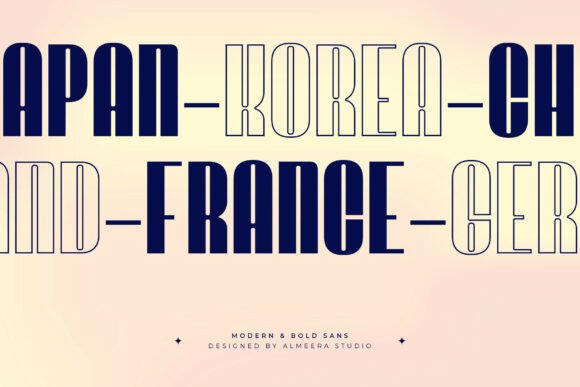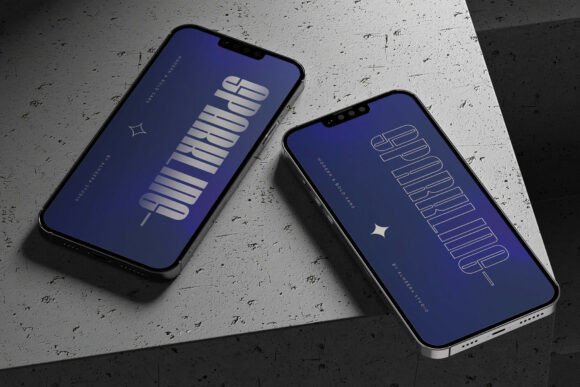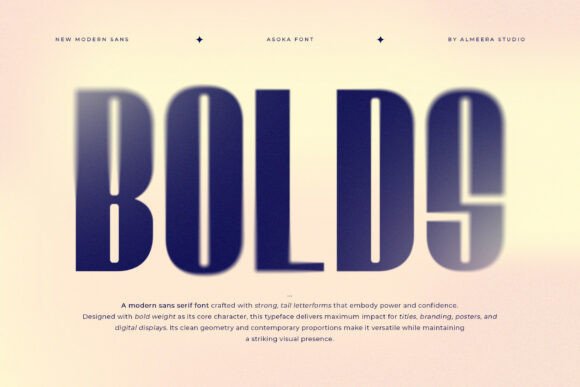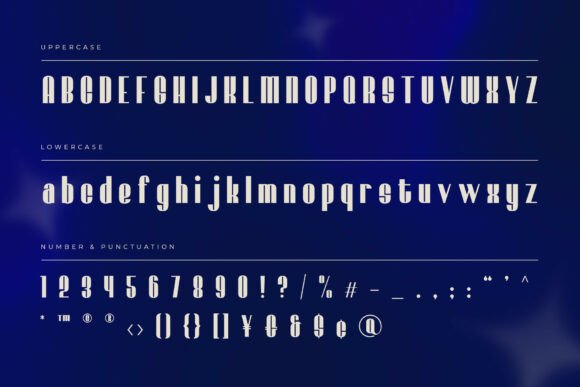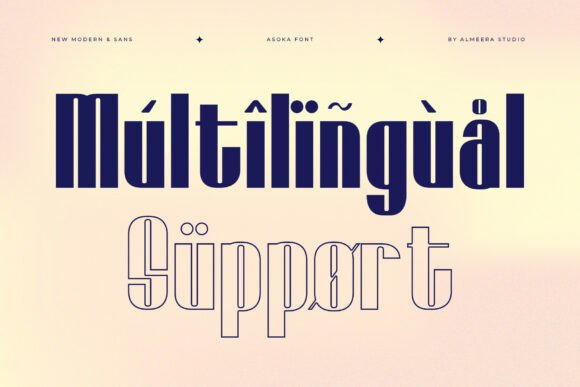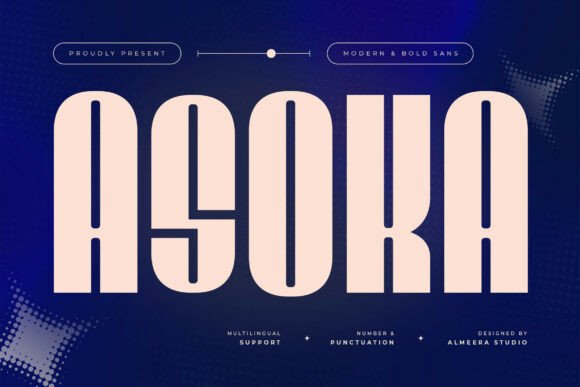
Introducing Asoka Font: The Modern, Bold Sans Font for Impactful Designs
In the world of typography, fonts play a crucial role in conveying messages, expressing emotions, and creating lasting impressions. For designers and crafters, selecting the right font can make all the difference in achieving their creative goals. If you’re looking for a font that exudes strength, clarity, and modernity, look no further than Asoka Font. In this article, we’ll explore the features, benefits, and uses of Asoka Font, and why it’s becoming a popular choice among designers and crafters.
What is Asoka Font?
Asoka Font is a modern, bold sans font that is designed to bring impact and attention to your designs. With its tall proportions and geometric structure, Asoka is perfect for creating striking headlines, logos, posters, packaging, and digital campaigns. Its contemporary style blends minimalism with authority, ensuring that your message always captures attention.
Key Features of Asoka Font
- Tall Proportions: Asoka Font features tall proportions that give it a sense of grandeur and monumentality, making it perfect for headlines and titles.
- Geometric Structure: The font’s geometric structure provides a sense of stability and balance, ensuring that your designs look clean and professional.
- Bold and Modern: Asoka Font is a bold and modern sans font that is designed to make a statement.
- Minimalist yet Authoritative: The font’s minimalist style ensures that your designs look clean and uncluttered, while its authoritative presence commands attention.
Benefits of Using Asoka Font
So why choose Asoka Font for your designs? Here are just a few benefits of using this versatile font:
- Versatility: Asoka Font can be used for a wide range of design applications, from print to digital media.
- Legibility: The font’s clear and geometric structure ensures that your text is always legible, even at small sizes.
- Emotional Connection: Asoka Font’s bold and modern style can help create an emotional connection with your audience, making your designs more engaging and memorable.
- Time-Saving: With Asoka Font, you can create professional-looking designs quickly and easily, saving you time and effort.
Uses of Asoka Font
Asoka Font is a versatile font that can be used for a wide range of design applications, including:
- Headlines and Titles: Use Asoka Font to create striking headlines and titles that grab attention.
- Branding and Logo Design: The font’s bold and modern style makes it perfect for creating logos and brand identities.
- Posters and Flyers: Asoka Font is ideal for creating eye-catching posters and flyers that stand out.
- Packaging Design: Use Asoka Font to create professional-looking packaging designs that showcase your brand.
- Digital Campaigns: The font’s clear and legible structure makes it perfect for digital campaigns, including social media graphics and email marketing.
Tips for Using Asoka Font
Here are a few tips for getting the most out of Asoka Font:
- Experiment with Sizes: Asoka Font looks great at a range of sizes, from small to large.
- Combine with Other Fonts: Try pairing Asoka Font with other fonts to create visual interest and contrast.
- Use Color Effectively: Use color to make your designs pop and draw attention to your message.
In conclusion, Asoka Font is a modern, bold sans font that is perfect for designers and crafters looking to create impactful designs. With its tall proportions, geometric structure, and minimalist style, Asoka Font is versatile, legible, and emotionally engaging. Whether you’re creating headlines, logos, posters, packaging, or digital campaigns, Asoka Font is a great choice. So why not give it a try and see the difference it can make in your designs?